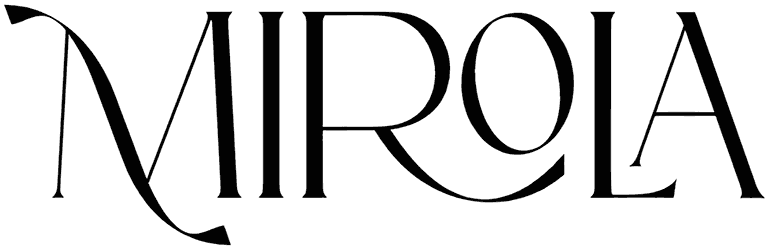
Mirola Font
Classic and lasting designs are always part of the most popular styles, and this serif font is a member of them. With a chic face, Mirola is a matchable choice for any formal or informal project. There is no support for numerals, but the Mirola font can be placed as a nice choice on your creative projects, for example, business cards, branding, flyers, and so forth.
Mirola is a serif used in modern styles. It fits your designs. It’s effortlessly beautiful and undoubtedly gorgeous. It’s brave to face uncertainty. These all represent you. Go ahead and use it on your websites, social media brandings, Pinterest banners, printed invitations, and more!